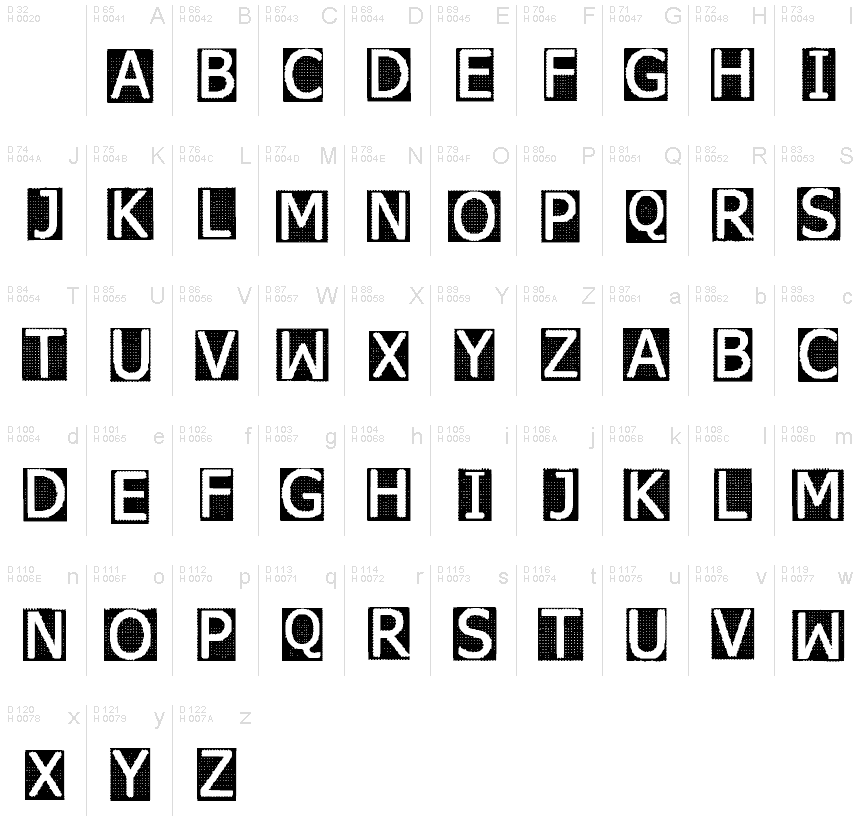
Dalaska Regular
Dalaska font by Matthieu Guyonvarch is a display font that is strongly contemporary with a distressed appearance. It is grunge textured with uneven outlines and an eroded style. This free techno typeface follows the fusion philosophy of mixing the old world with the new one. It presents viewers with lovely surprises while carrying itself authentically.